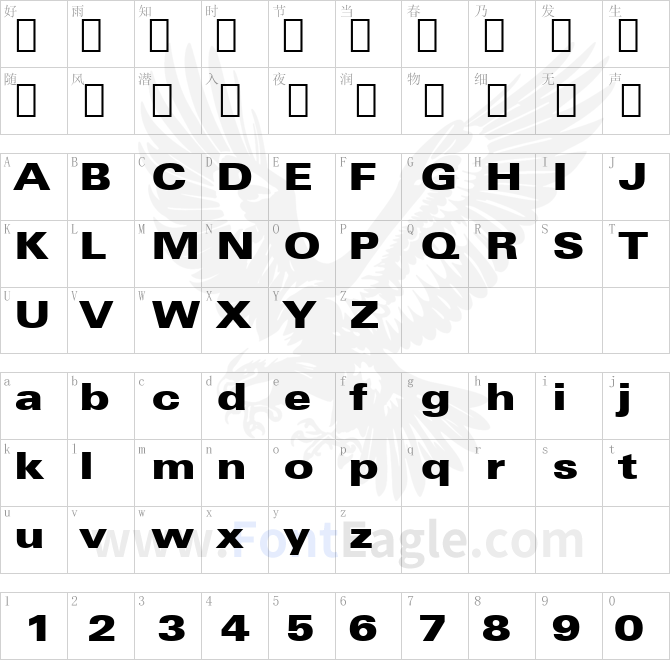
- Font name:Zurich UBlkEx BT
- Font Subfamily:Ultra Black
- Font Subfamily ID:Zurich Ultra Black Extended, Swiss 742
- Font Full Name:Zurich UBlkEx BT Ultra Black